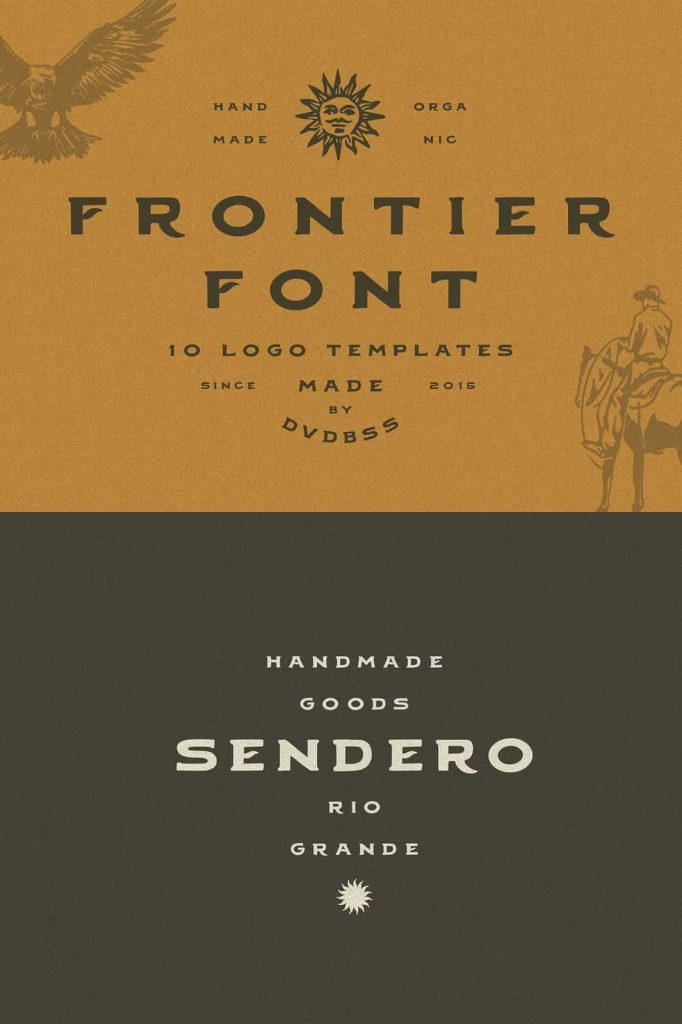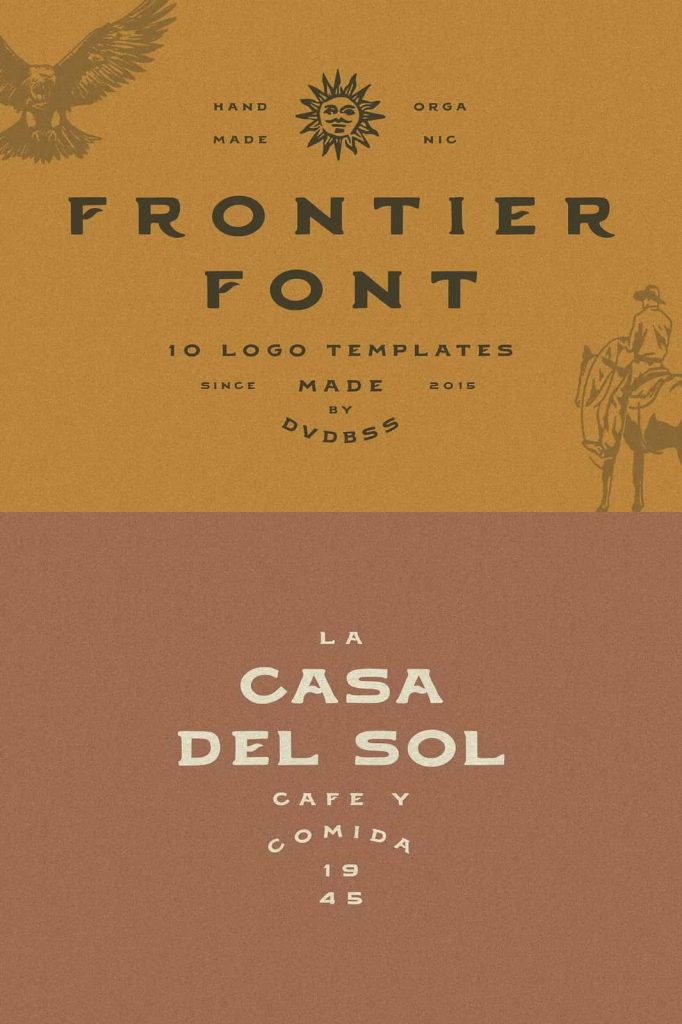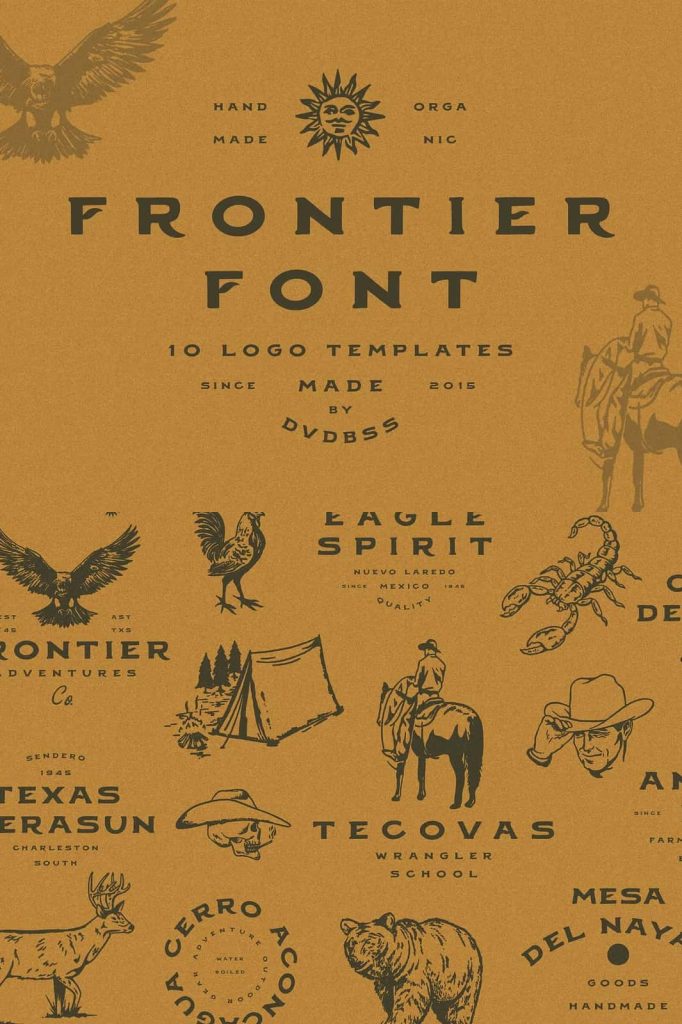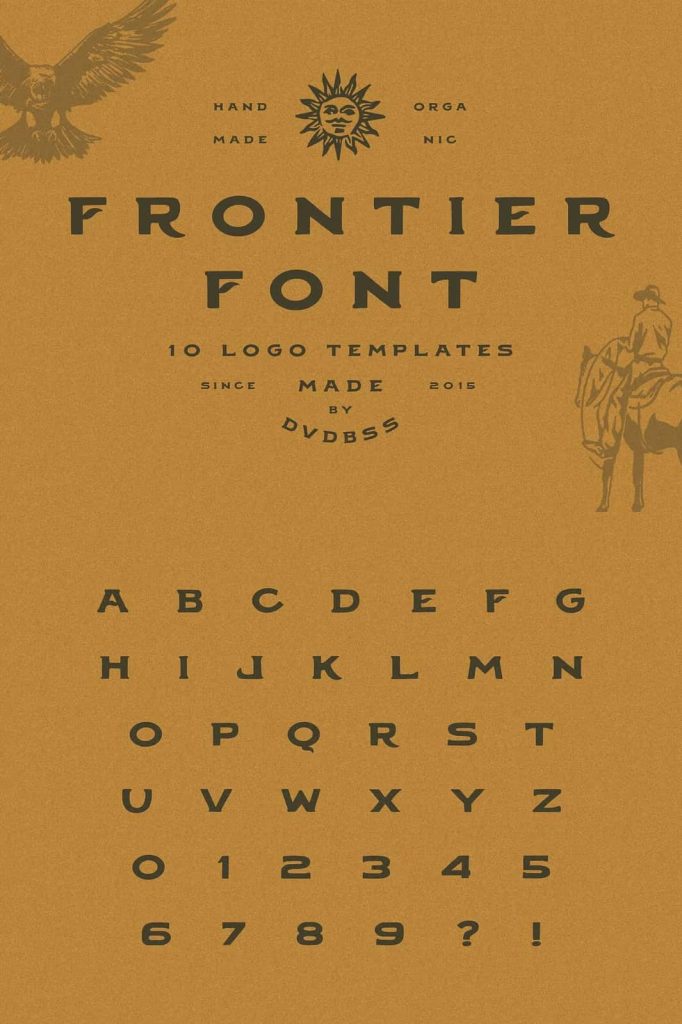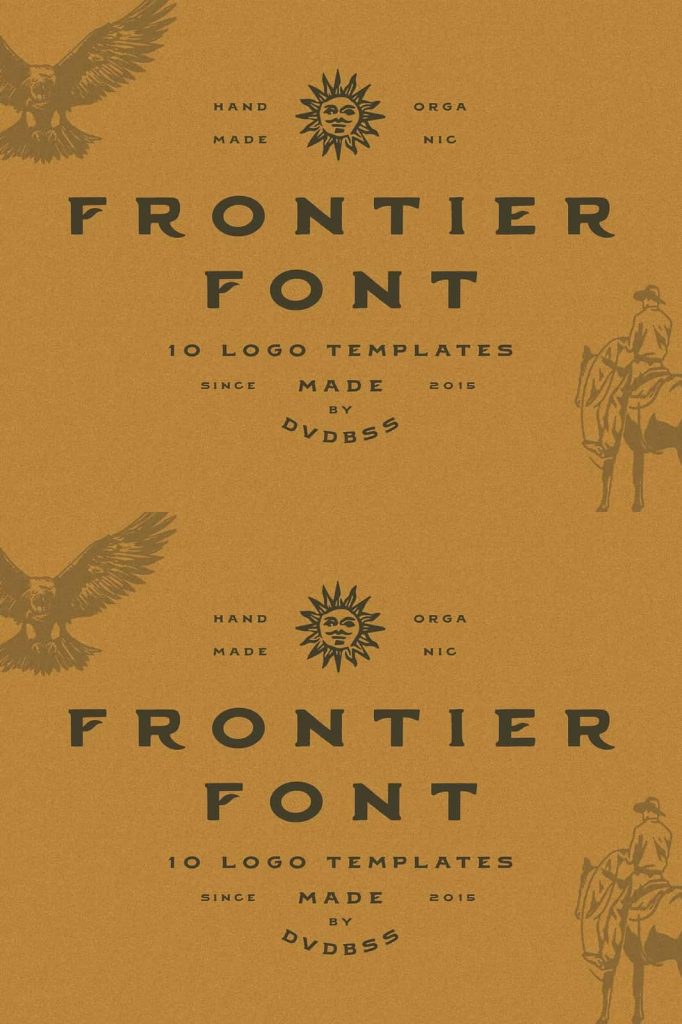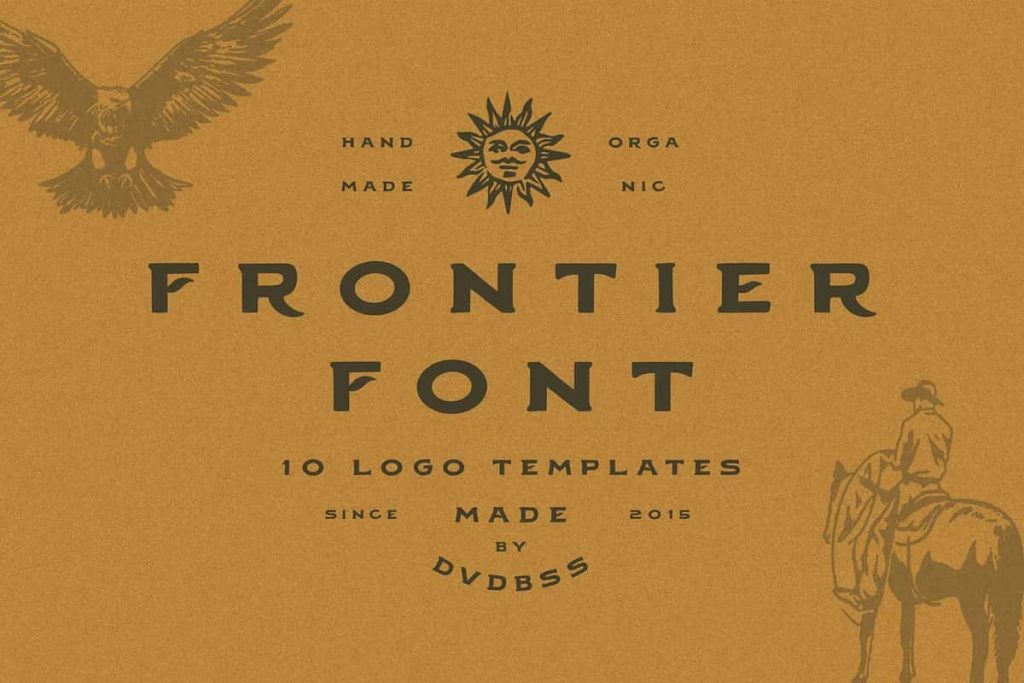
Frontier & Extra
Frontier Western Serif Font
Frontier is a charming handcrafted serif font inspired by the rugged beauty and timeless appeal of classic Western design. Created with attention to detail, this unique typeface captures the authentic spirit of the American frontier while delivering exceptional versatility for modern creative projects. Whether you are designing a logo, creating vintage branding, developing product packaging, or producing eye-catching marketing materials, Frontier provides the perfect balance of elegance, personality, and rustic charm.
With carefully crafted letterforms and distinctive serif details, Frontier instantly adds character and authenticity to your designs. Every glyph showcases handcrafted artistry, helping designers create memorable visual identities that stand out from the crowd.
Authentic Western-Inspired Design
Inspired by classic Western typography, Frontier brings a nostalgic yet professional look to any project. The font features bold serif structures, handcrafted curves, and vintage-inspired details that reflect the adventurous spirit of the frontier era. Its carefully balanced design allows users to create everything from rustic branding concepts to sophisticated editorial layouts.
Frontier works exceptionally well across a wide range of industries and creative applications. Designers can use it for restaurants, coffee shops, breweries, outdoor brands, fashion labels, artisan products, event promotions, and much more.
Complete Creative Toolkit Included
More than just a font, Frontier comes as a complete design package that helps streamline your creative workflow. Alongside the typeface, you receive professionally crafted design assets that allow you to build cohesive and visually appealing projects in less time.
10 Premade Logo Templates
Frontier includes 10 professionally designed logo templates that help you create stunning brand identities quickly and efficiently. These ready-to-use templates provide excellent starting points for businesses, personal brands, product packaging, and promotional materials. Simply customize the text, adjust the layout, and create a polished logo that reflects your vision.
15 Handcrafted Illustrations
The package also features 15 unique handcrafted illustrations inspired by Western culture and vintage aesthetics. These detailed illustrations complement the font perfectly and allow designers to add additional character and storytelling elements to their projects. Use them for posters, labels, merchandise, social media graphics, website designs, and packaging concepts.
Perfect for Multiple Design Applications
Frontier offers incredible flexibility, making it suitable for both digital and print projects. Its distinctive appearance helps create strong visual impact while maintaining excellent readability. Whether you are working on a small branding project or a large-scale marketing campaign, Frontier delivers professional and engaging results.
Ideal applications include:
• Logo design and branding
• Vintage and retro-inspired projects
• Product packaging
• Poster and flyer design
• Restaurant and cafĂ© branding
• Whiskey, brewery, and beverage labels
• Outdoor and adventure brands
• Website headers and hero sections
• Social media graphics
• Merchandise and apparel design
Why Choose Frontier?
Frontier combines authentic craftsmanship with practical usability. Every character has been thoughtfully designed to deliver visual appeal while remaining versatile enough for a variety of professional projects. The included logo templates and handcrafted illustrations provide added value, allowing designers to create complete visual systems without searching for additional assets.
Its unique Western-inspired personality helps brands establish a memorable identity while maintaining a polished and professional appearance. Whether you want to evoke nostalgia, adventure, tradition, or craftsmanship, Frontier gives you the creative tools needed to bring your ideas to life.
Bring Your Creative Vision to Life